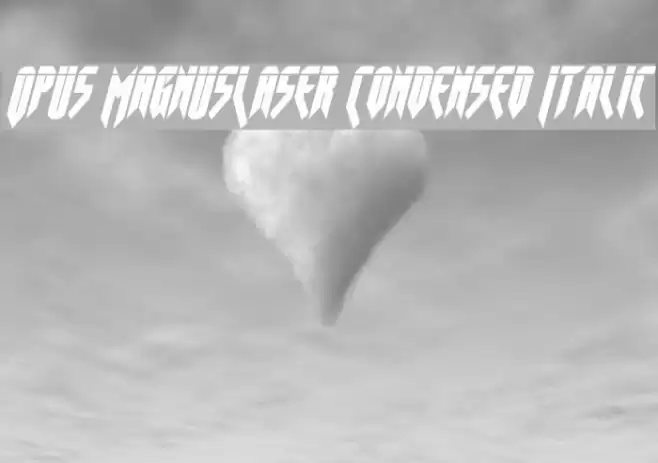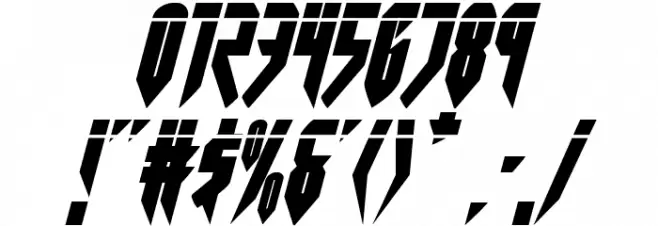
Opus MagnusLaser Condensed Italic Font
Opus MagnusLaser Condensed Italic Description
This font features a bold and dynamic design with sharp, angular edges and a futuristic aesthetic. The condensed letterforms are italicized, adding a sense of motion and urgency. The uppercase and lowercase letters maintain a consistent style, with exaggerated diagonal strokes and pointed terminals. Numbers and special characters follow the same angular theme, creating a cohesive and striking visual impact. The overall appearance is aggressive and modern, suitable for projects that require a strong and distinctive typeface.
A bold, angular, and italicized font with a futuristic and dynamic style from Uncategorized fonts.
- Proposed Projects: Ideal for sci-fi movie posters, video game titles, sports branding, and edgy graphic design projects.
- Character Spacing: Tight